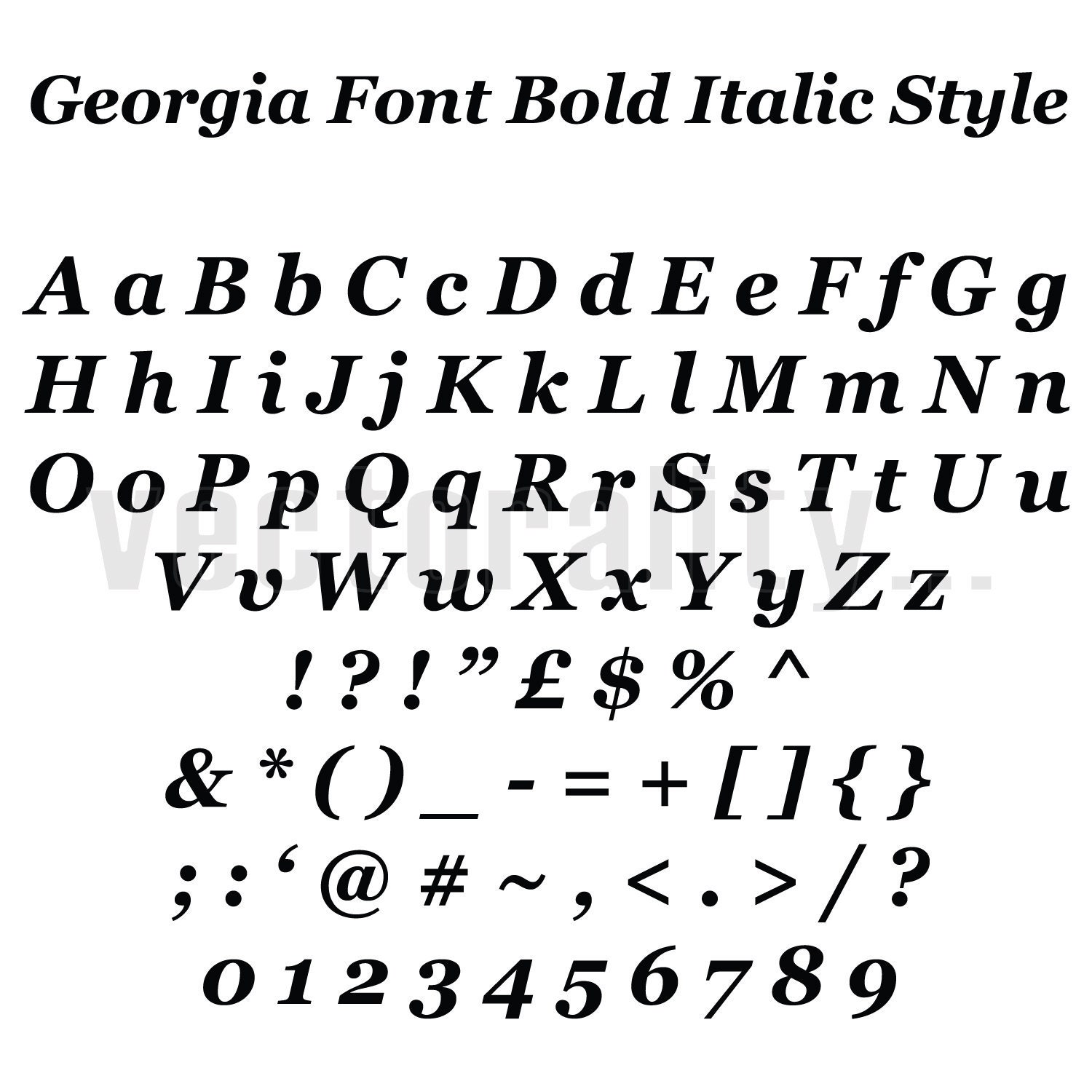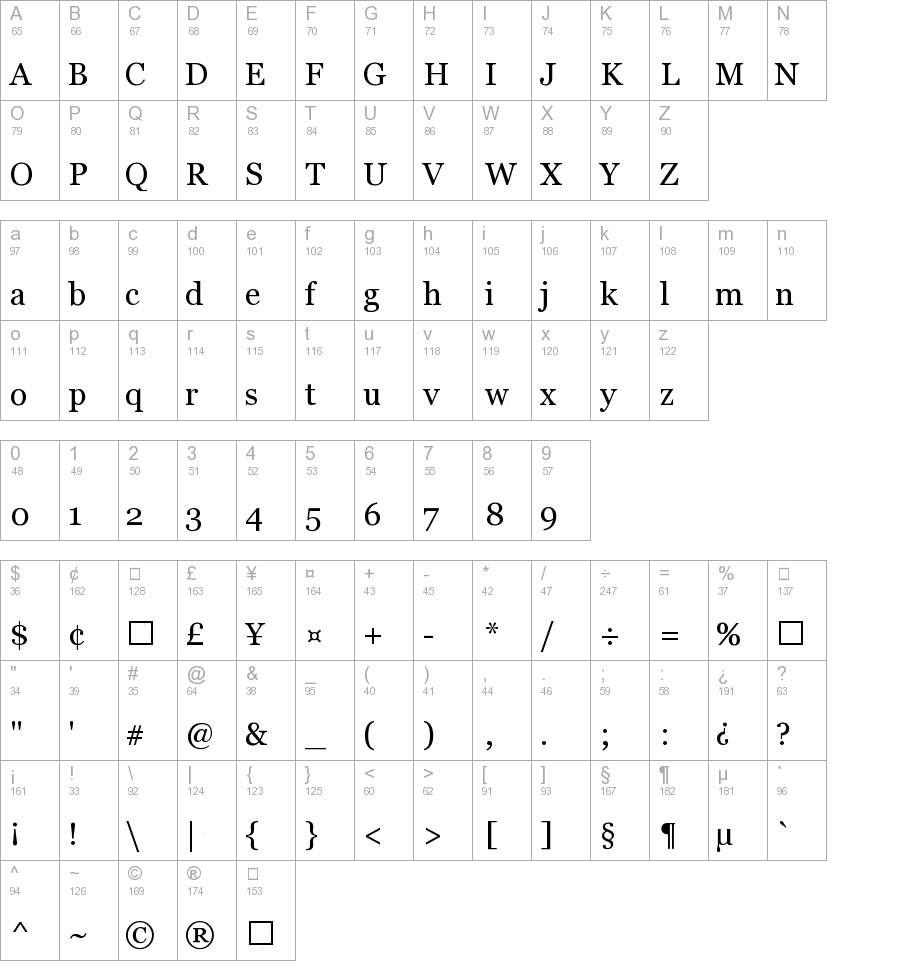
Georgia Font Style
Georgia Font Style - Our vibrant palette brings intensity and youthfulness. The addition of serifs makes the font suited both for. Web georgia fits that bill because it creates an interesting typeface that is still legible and easy to read. Georgia font is a serif typeface designed in 1993 by using matthew carter and hinted by way of tom rickner for the microsoft company. Web georgia is a serif typeface designed in 1993 by matthew carter and hinted by tom rickner for microsoft. Web windows 10 version 1507 released on july 29, 2015. It was intended as a serif typeface that would appear elegant.
Our vibrant palette brings intensity and youthfulness. The addition of serifs makes the font suited both for. Web windows 10 version 1507 released on july 29, 2015. It was intended as a serif typeface that would appear elegant. Web georgia fits that bill because it creates an interesting typeface that is still legible and easy to read. Georgia font is a serif typeface designed in 1993 by using matthew carter and hinted by way of tom rickner for the microsoft company. Web georgia is a serif typeface designed in 1993 by matthew carter and hinted by tom rickner for microsoft.
The addition of serifs makes the font suited both for. Web windows 10 version 1507 released on july 29, 2015. Our vibrant palette brings intensity and youthfulness. Web georgia is a serif typeface designed in 1993 by matthew carter and hinted by tom rickner for microsoft. Georgia font is a serif typeface designed in 1993 by using matthew carter and hinted by way of tom rickner for the microsoft company. It was intended as a serif typeface that would appear elegant. Web georgia fits that bill because it creates an interesting typeface that is still legible and easy to read.
Web georgia is a serif typeface designed in 1993 by matthew carter and hinted by tom rickner for microsoft. The addition of serifs makes the font suited both for. Web georgia fits that bill because it creates an interesting typeface that is still legible and easy to read. It was intended as a serif typeface that would appear elegant. Web.
The addition of serifs makes the font suited both for. Georgia font is a serif typeface designed in 1993 by using matthew carter and hinted by way of tom rickner for the microsoft company. It was intended as a serif typeface that would appear elegant. Web georgia is a serif typeface designed in 1993 by matthew carter and hinted by.
Web georgia fits that bill because it creates an interesting typeface that is still legible and easy to read. Georgia font is a serif typeface designed in 1993 by using matthew carter and hinted by way of tom rickner for the microsoft company. Web georgia is a serif typeface designed in 1993 by matthew carter and hinted by tom rickner.
Web windows 10 version 1507 released on july 29, 2015. Georgia font is a serif typeface designed in 1993 by using matthew carter and hinted by way of tom rickner for the microsoft company. Web georgia is a serif typeface designed in 1993 by matthew carter and hinted by tom rickner for microsoft. The addition of serifs makes the font.
Web georgia fits that bill because it creates an interesting typeface that is still legible and easy to read. Web windows 10 version 1507 released on july 29, 2015. The addition of serifs makes the font suited both for. Georgia font is a serif typeface designed in 1993 by using matthew carter and hinted by way of tom rickner for.
Web georgia fits that bill because it creates an interesting typeface that is still legible and easy to read. It was intended as a serif typeface that would appear elegant. Web windows 10 version 1507 released on july 29, 2015. Web georgia is a serif typeface designed in 1993 by matthew carter and hinted by tom rickner for microsoft. Georgia.
Web georgia fits that bill because it creates an interesting typeface that is still legible and easy to read. It was intended as a serif typeface that would appear elegant. Georgia font is a serif typeface designed in 1993 by using matthew carter and hinted by way of tom rickner for the microsoft company. Web georgia is a serif typeface.
It was intended as a serif typeface that would appear elegant. Georgia font is a serif typeface designed in 1993 by using matthew carter and hinted by way of tom rickner for the microsoft company. Web georgia fits that bill because it creates an interesting typeface that is still legible and easy to read. Web windows 10 version 1507 released.
Web windows 10 version 1507 released on july 29, 2015. Georgia font is a serif typeface designed in 1993 by using matthew carter and hinted by way of tom rickner for the microsoft company. Web georgia fits that bill because it creates an interesting typeface that is still legible and easy to read. It was intended as a serif typeface.
Web windows 10 version 1507 released on july 29, 2015. It was intended as a serif typeface that would appear elegant. Web georgia is a serif typeface designed in 1993 by matthew carter and hinted by tom rickner for microsoft. Georgia font is a serif typeface designed in 1993 by using matthew carter and hinted by way of tom rickner.
Web georgia is a serif typeface designed in 1993 by matthew carter and hinted by tom rickner for microsoft. Our vibrant palette brings intensity and youthfulness. Georgia font is a serif typeface designed in 1993 by using matthew carter and hinted by way of tom rickner for the microsoft company. It was intended as a serif typeface that would appear elegant.
The Addition Of Serifs Makes The Font Suited Both For.
Web georgia fits that bill because it creates an interesting typeface that is still legible and easy to read.